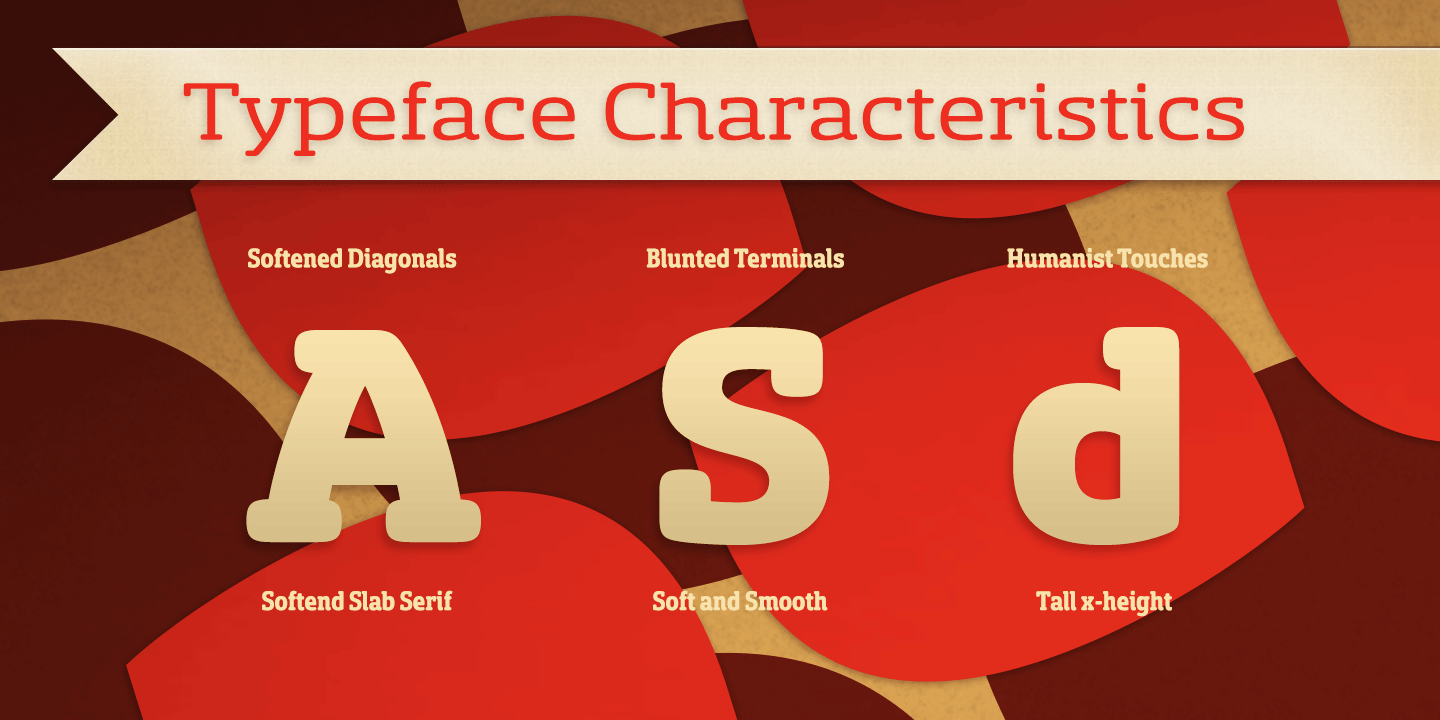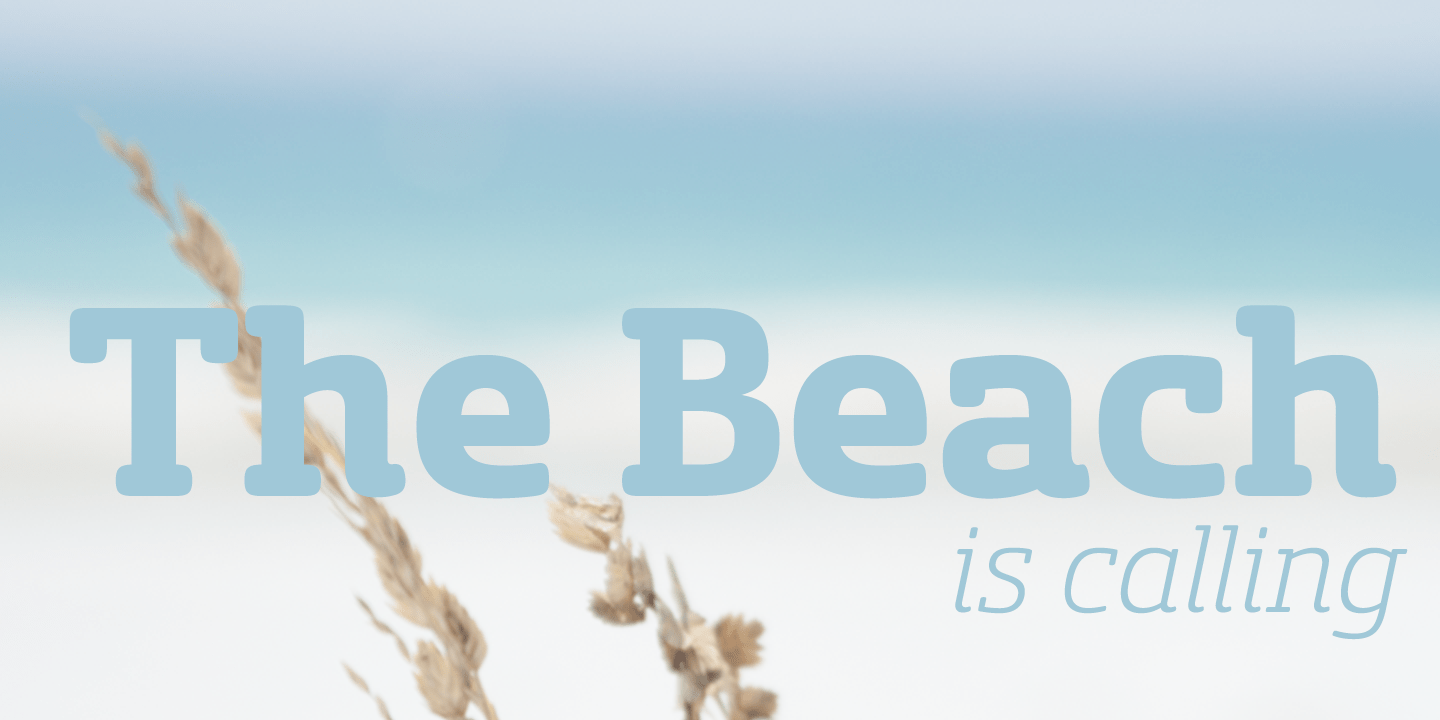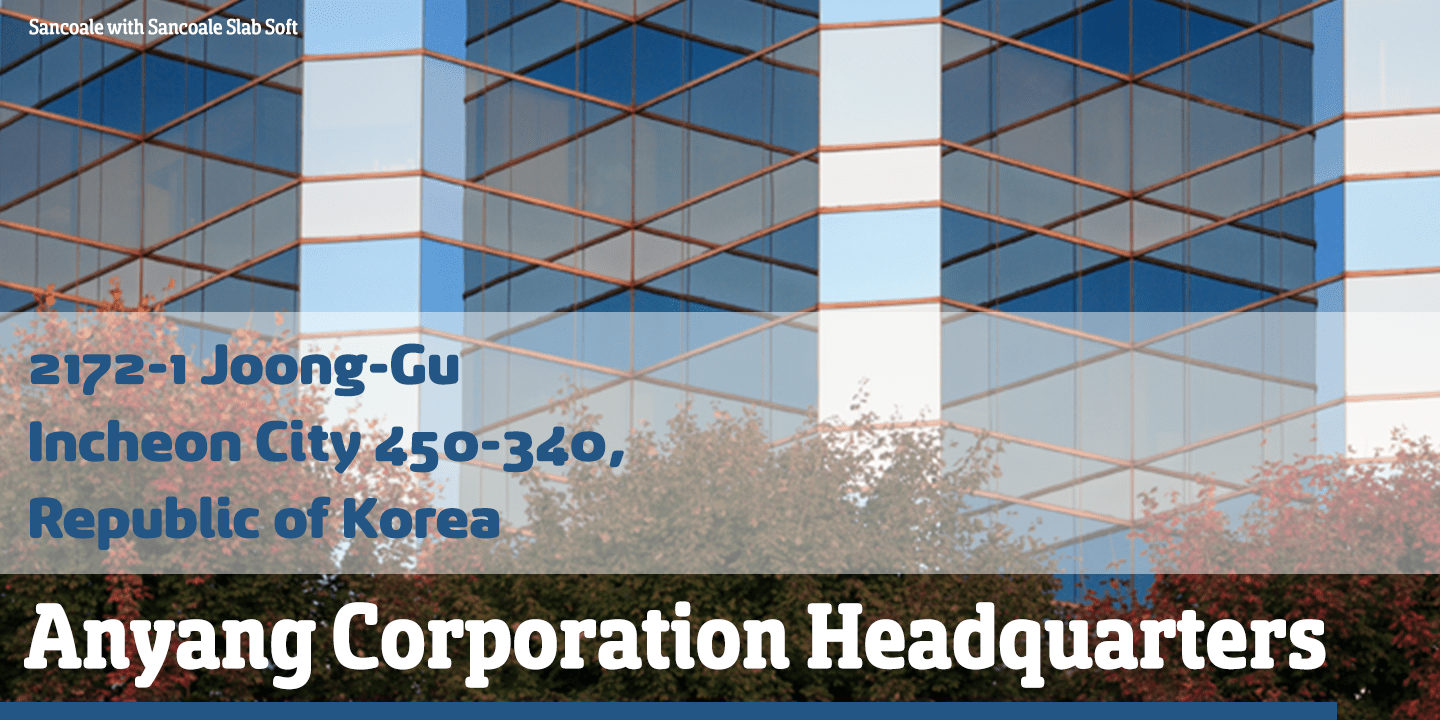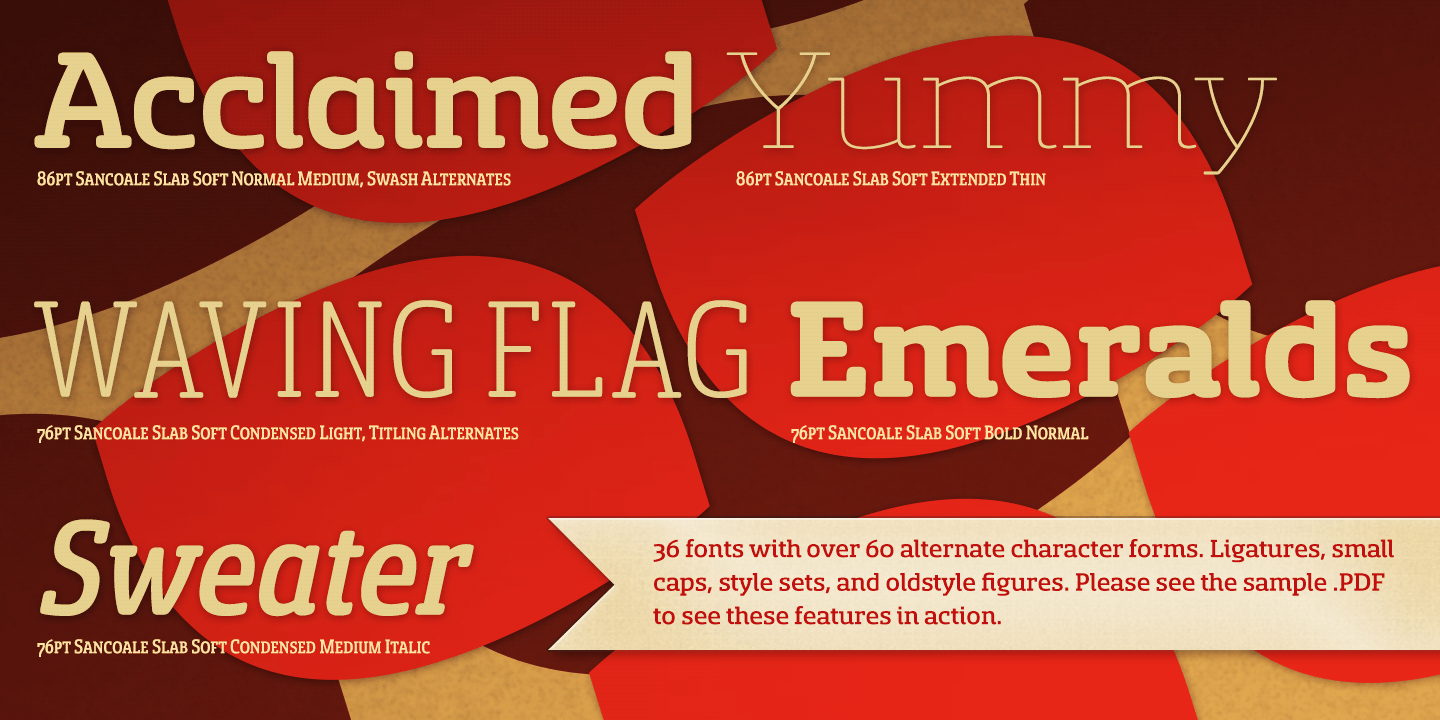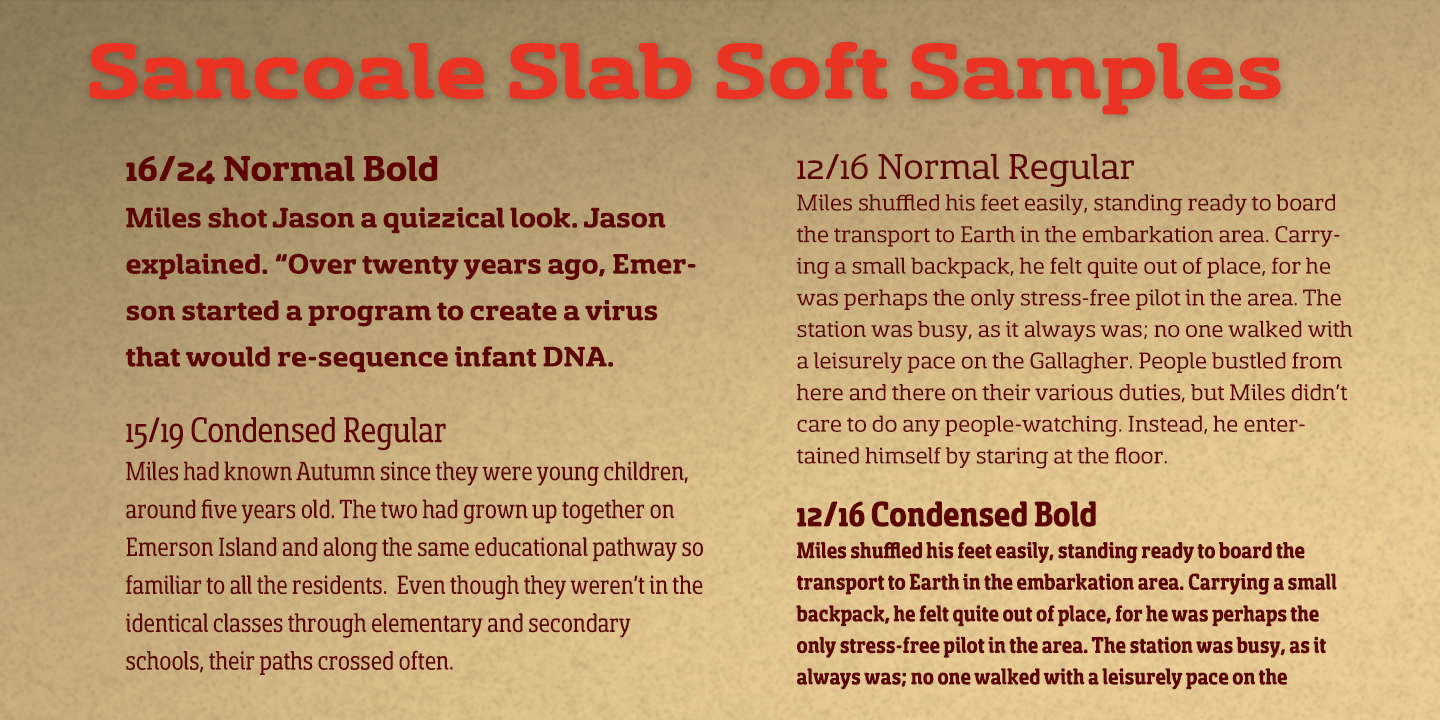
Sancoale Slab Soft
Font Family by Insigne
Ready for the designs of today, the Sancoale superfamily takes a softer turn with a rounded slab serif.
Crafted from Sancoale's simple geometry, new softened slab serifs provide a lively typeface that conveniently enhances its cousins: Sancoale Softened--a sans with blunted terminals; Sancoale Slab; and, certainly, the first Sancoale. The weights of each and every member are balanced diligently to be compatible with one another. When used alongside one another, the combination makes for robust and tight design.
With weights starting with the slender thin ranging to the juicy black, Slab Soft opens the doorway to the vary of uses. Its design is legible and neutral enough for bodies of copy--both in print and on your website. The web font also stands out perfectly as a headline or a display face. Slab Soft carefully places a foot ahead, and doesn't overpower like many slabs. This font's the choice to seize the day and get the job done.
All insigne? fonts are absolutely loaded with OpenType options. Sancoale Slab is geared up for pro typography, together with alternates with stems, compact caps and lots of alts, together with ?normalized? capitals and lowercase letters. The font features many numeral sets, with fractions, old-style and lining figures with superiors and inferiors. OpenType-capable programs like Quark or the Adobe suite allow you to quickly change ligatures and alternates. You can see these options shown in the .pdf brochure. Bundled are compact caps, fractions, old-style and lining quantities, scientific superior/inferior figures, entire ordinal and inferior alphabet.
The Sancoale superfamily also features the glyphs to aid a variety of languages, together with Central, Eastern and Western European languages. In all, Sancoale Slab supports around forty languages that utilize the Latin script, earning Sancoale the pick for for multi-lingual publications and packaging.